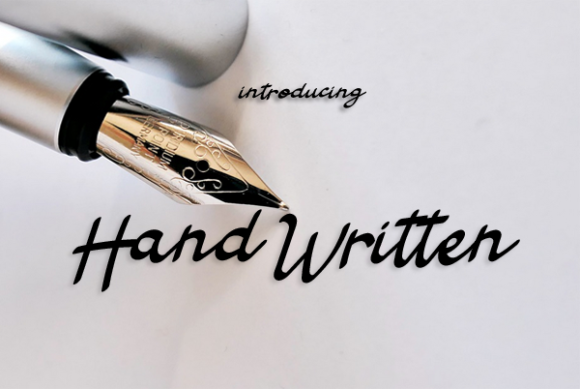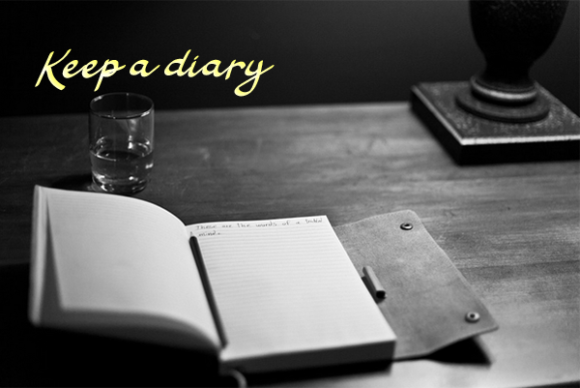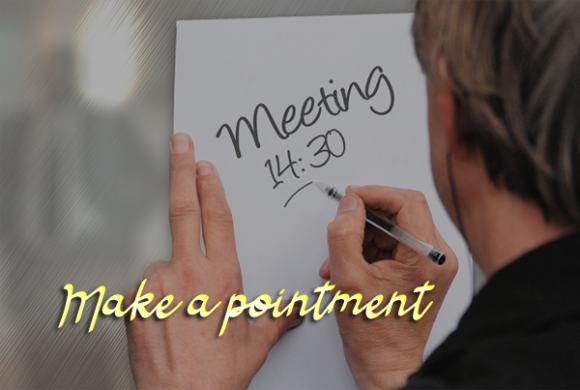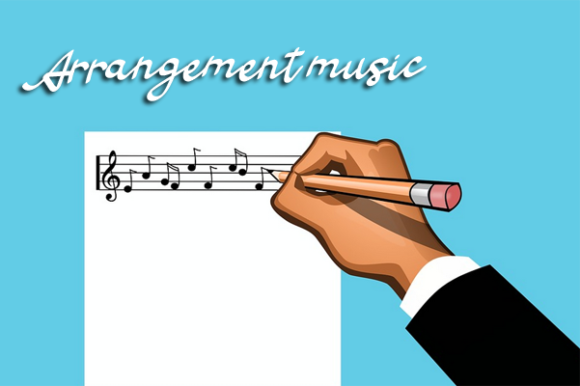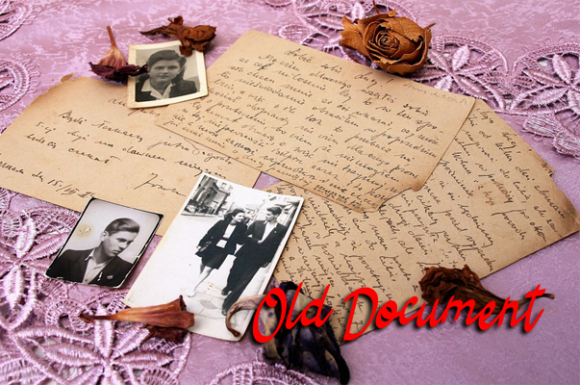
Hand Written Font
About Hand Written Font
Hand Written is a delicate and sweet calligraphy typeface with characters that dance along the baseline. It will add a luxury spark to any design project that you wish to create.